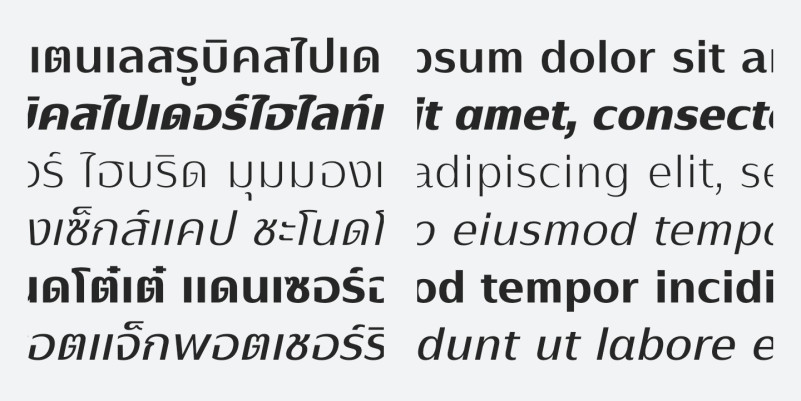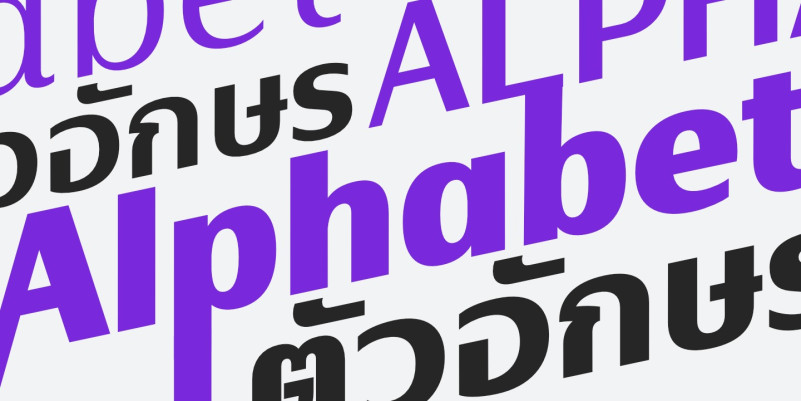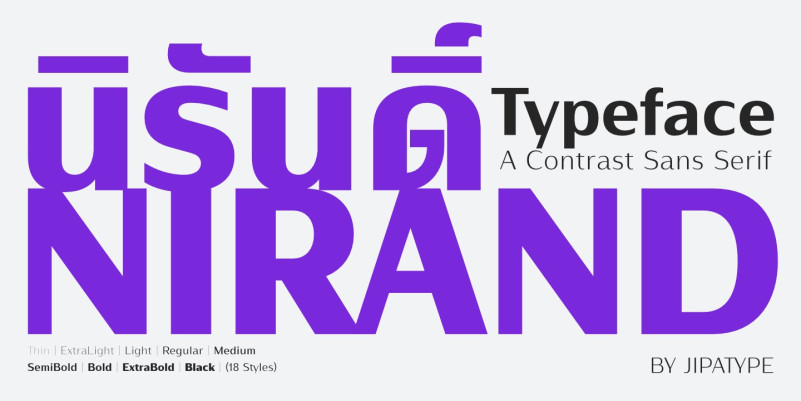
Nirand Font
Nirand Sans Serif Font, This bundle features strong, confident and powerful typefaces designed to work great with sports logos, club branding, apparel applications, labels and more.